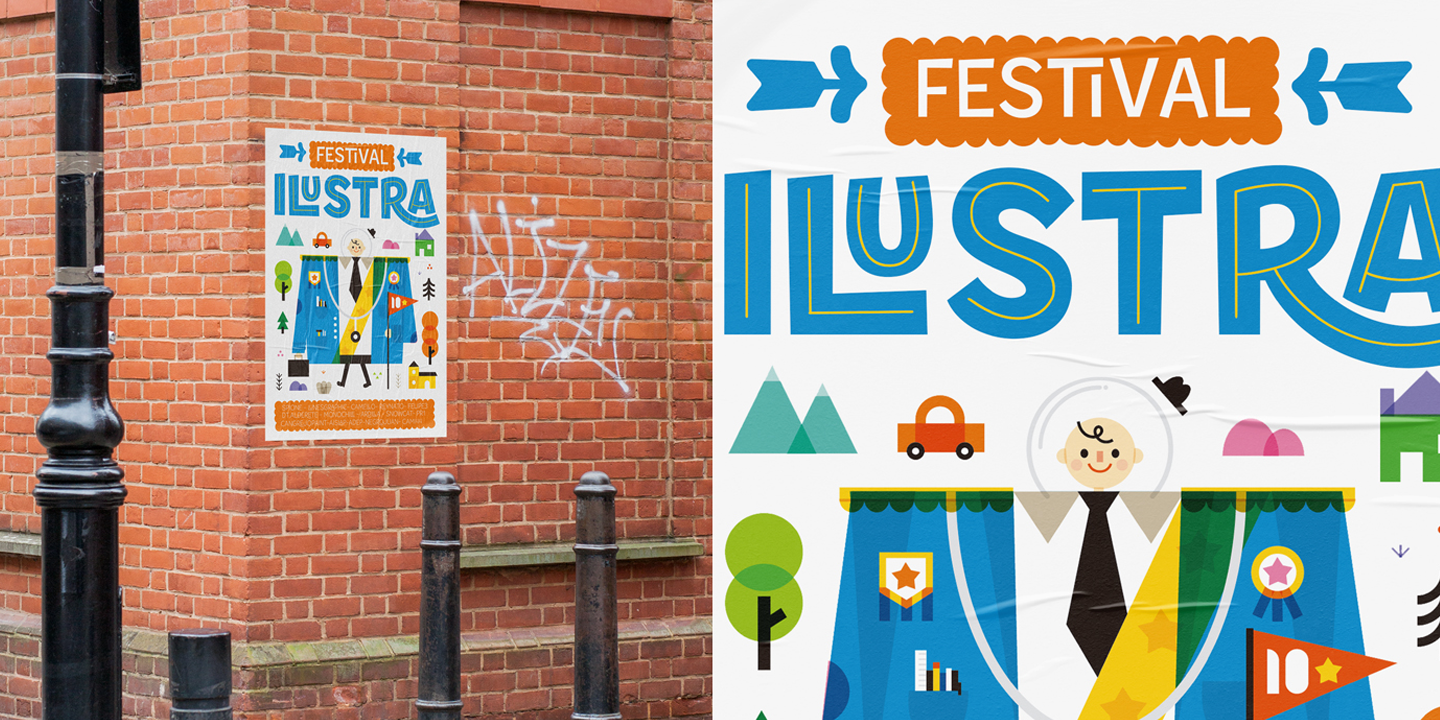
Tobi Pro Font is a professional sans-serif typeface that combines corporate reliability with contemporary design excellence for business applications. This font is available for commercial use and must be purchased for business applications. You can download it for free for testing purposes only.
Tobi Pro Font excels in numerous design applications including corporate branding, annual reports, business presentations, professional websites, financial documents, legal publications, medical communications, technical manuals, executive correspondence, and institutional signage. Its authoritative character makes it perfect for organizations requiring trustworthy and professional visual communication.
What makes Tobi Pro Font so exciting is its exceptional balance between professional authority and modern accessibility, featuring refined letterforms, optimized spacing, and excellent legibility that creates corporate credibility while maintaining contemporary appeal. The font's professional design conveys competence and reliability, making it ideal for businesses seeking to establish trust and expertise.
The Tobi Pro Font family includes comprehensive weight variations: Light, Regular, Medium, Bold, Black, and their corresponding italic versions, plus condensed and extended options. Each family member maintains consistent professional relationships while offering different levels of emphasis, providing designers with extensive typographic flexibility for complex corporate communications.
This exceptional typeface represents the perfect fusion of corporate design standards and contemporary functionality, making Tobi Pro Font Free Download an invaluable resource for professional designers. The font's reliable characteristics work exceptionally well in business environments where credibility, clarity, and professional presentation are fundamental requirements.
Tobi Pro Font supports extensive international character sets including Western European, Eastern European, and Cyrillic scripts, plus comprehensive business symbols and financial notation. Its advanced OpenType features ensure professional typography standards across global corporate communications and multilingual business applications.
Professional designers choose Tobi Pro Font for its reliability in corporate communications, financial reporting, and professional branding projects. The font's authoritative nature makes it particularly effective for consulting firms, financial institutions, healthcare organizations, and professional service providers where trust and expertise are essential.
The font's corporate sophistication and professional excellence make it particularly suitable for law firms, accounting practices, management consultancies, medical institutions, and established corporations. Its trustworthy appeal ensures communications maintain credibility and professional respect across changing business trends.